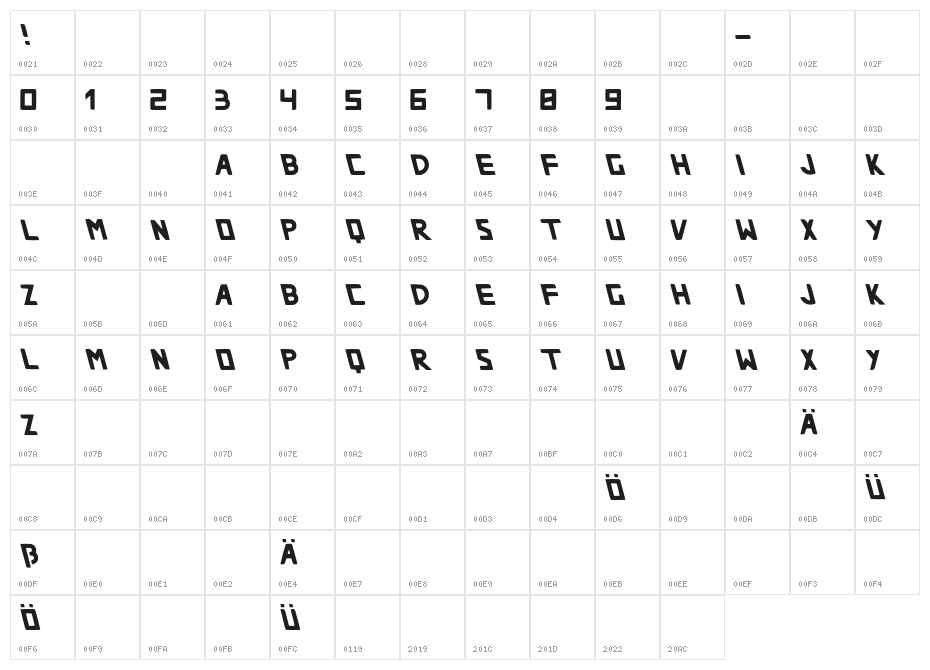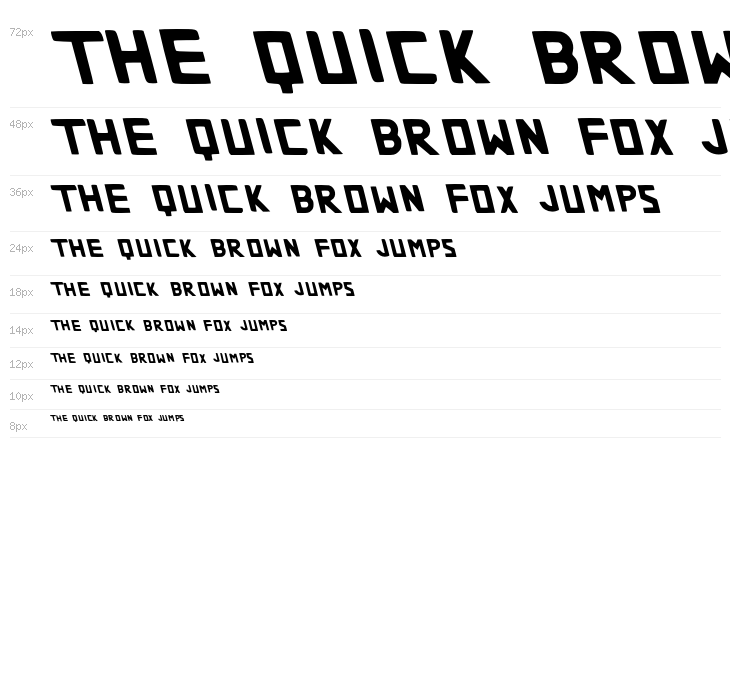
Sear Font
Sear Description
This font features a bold and angular design, characterized by its geometric and slightly futuristic appearance. The letters are constructed with sharp edges and a consistent stroke width, giving it a strong and assertive presence. The uppercase and lowercase letters maintain a uniform style, with a slight slant that adds a dynamic feel. The numerals are equally bold, matching the overall aesthetic of the alphabet. Special characters are designed with the same angular approach, ensuring consistency across all glyphs. This font is well-suited for projects that require a modern and impactful look.
Use CaseHeadlines, Logos
Proposed ProjectsIdeal for branding, posters, video game graphics, and tech-related designs.